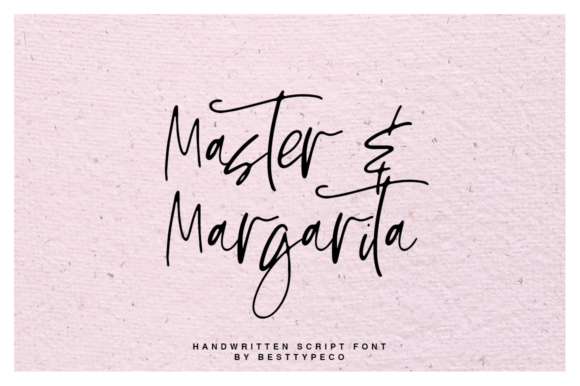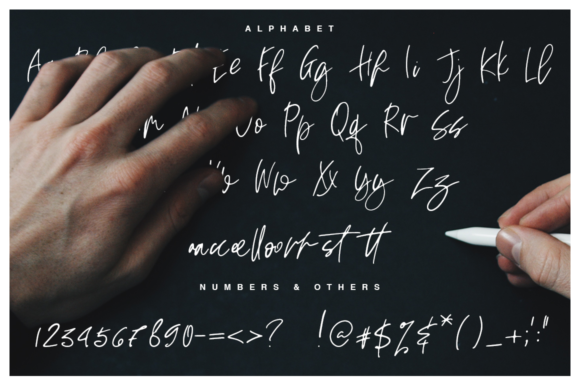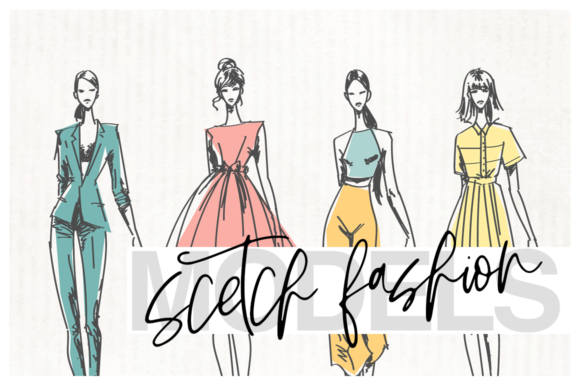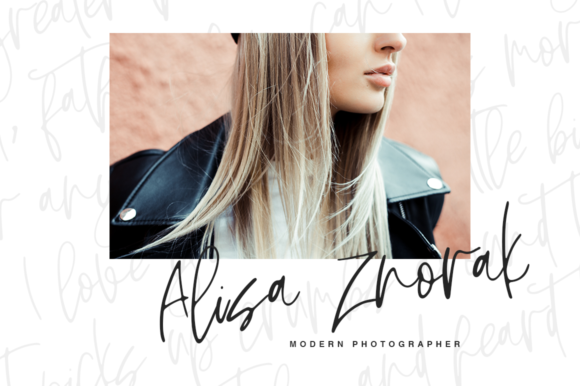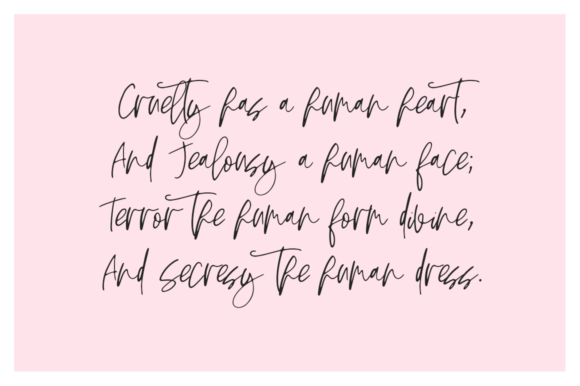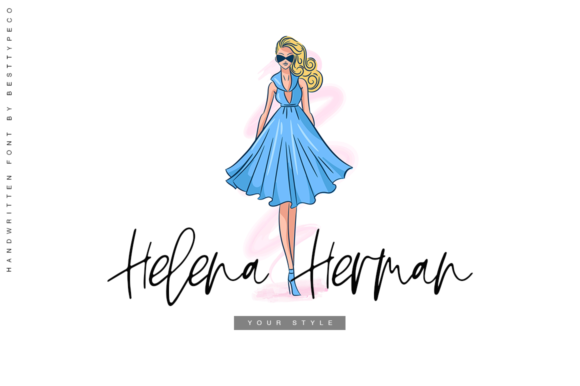
Master & Margarita Font
About Master & Margarita Font
Master & Margarita is a handmade calligraphy font with charming character. This font will make your text stand out from the crowd!